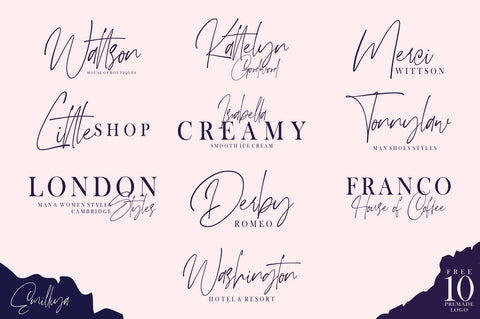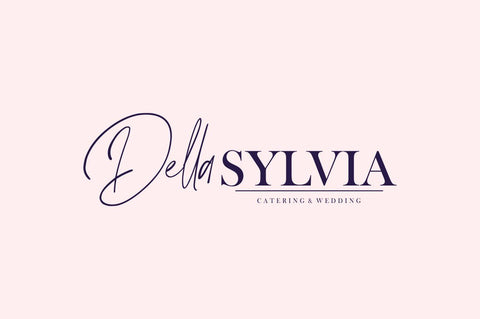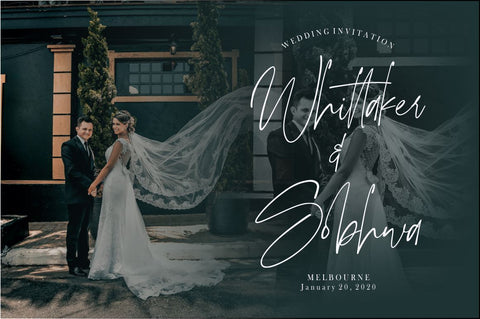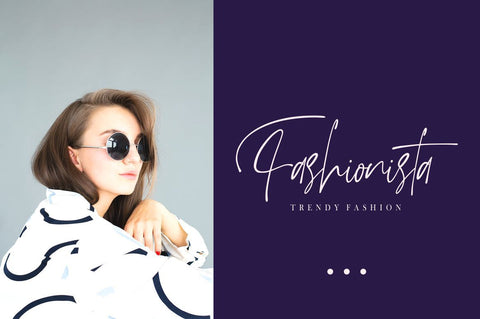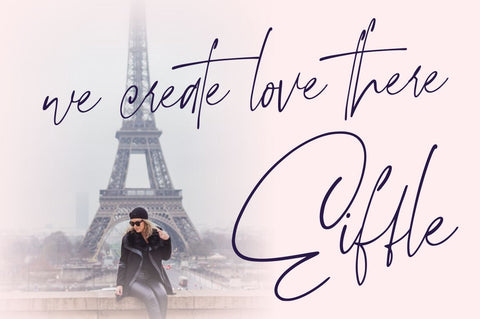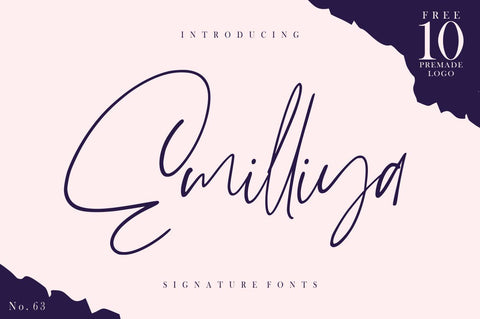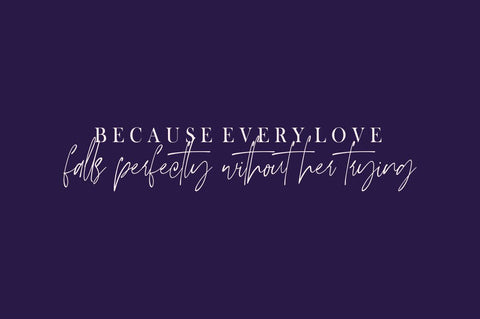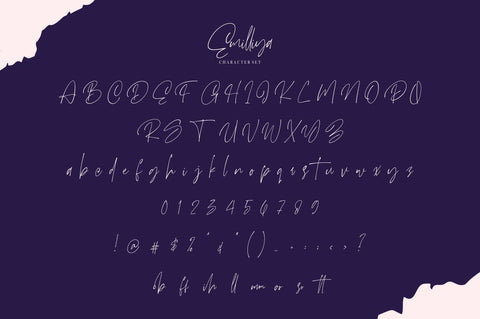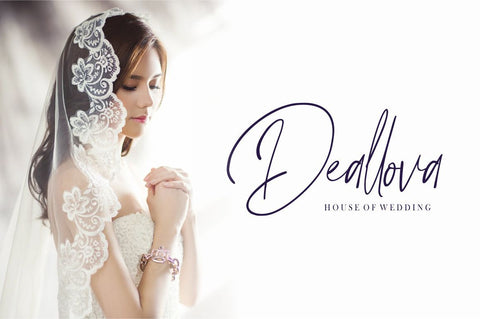
Emilliya – Luxury Signature Font
Introducing Emilliya // Luxury Signature Font
Emilliya – signature font is a natural & modern handwritten font. I’ts Perfect for logo, invitation, stationery, wedding designs, social media posts, advertisements, product packaging, product designs, label, photography, watermark, special events or anything. This font include : Emilliya OTF-TTF-WOFF, Ligatures and also Multilingual support.
What’s Advantages Emilliya ?
- Very great for branding, logotype, handletteing, invitations, or fashion branding.